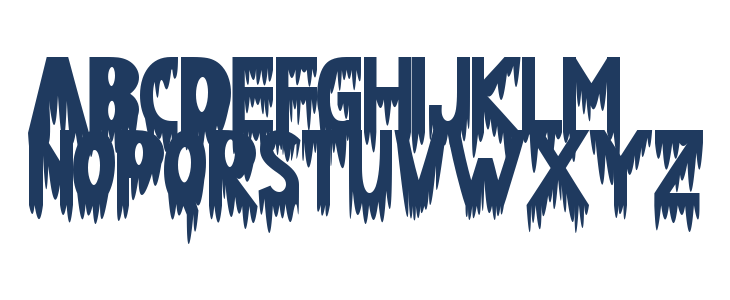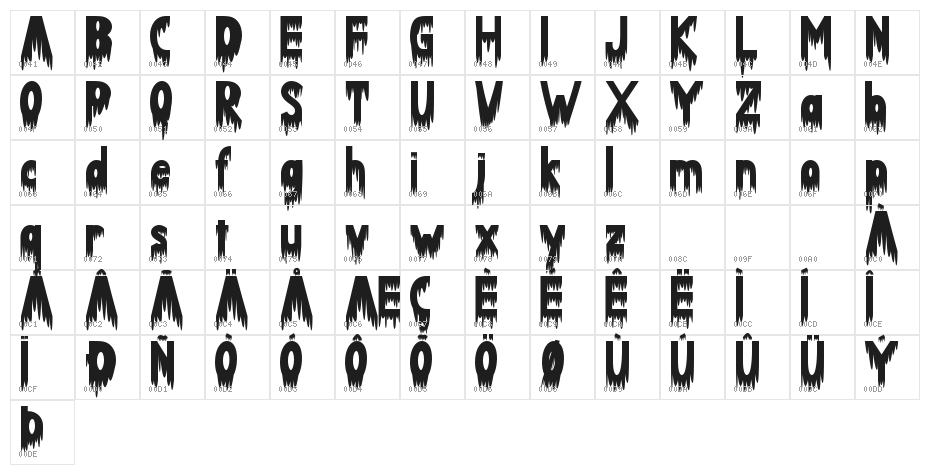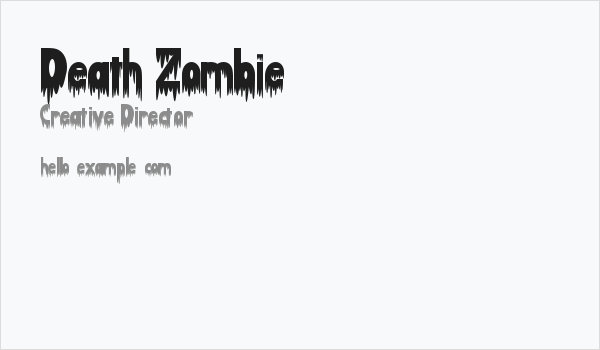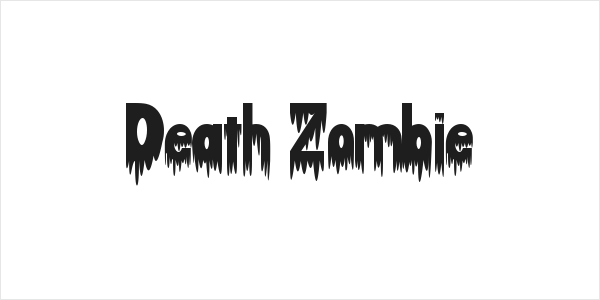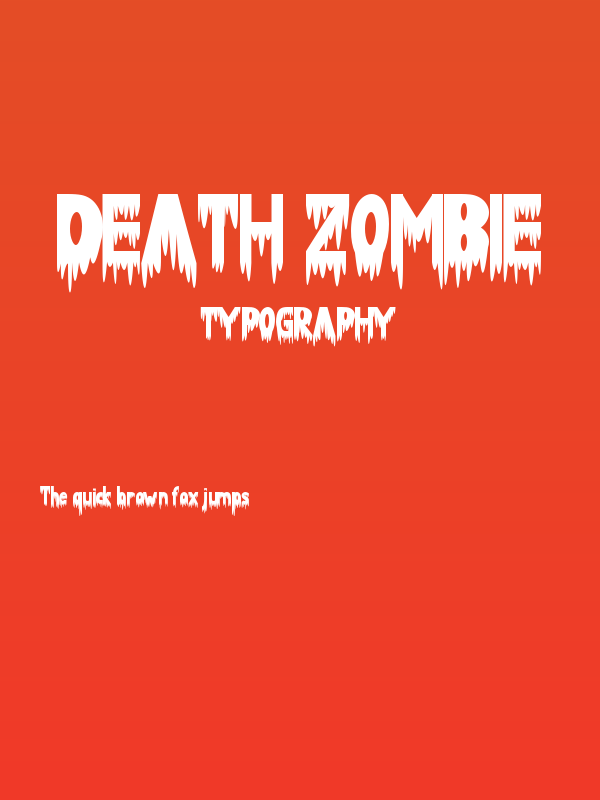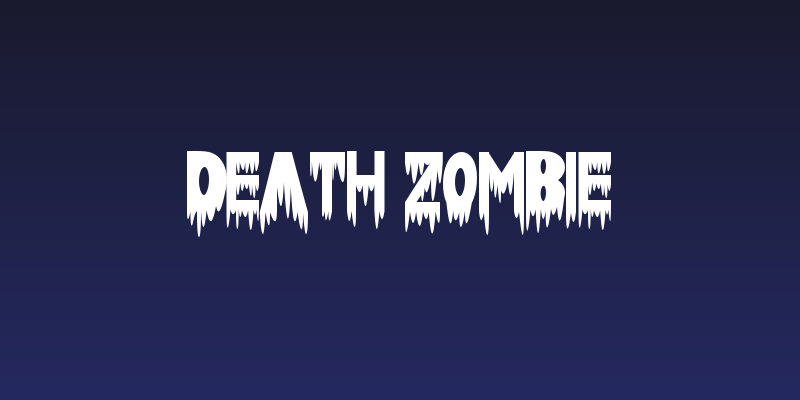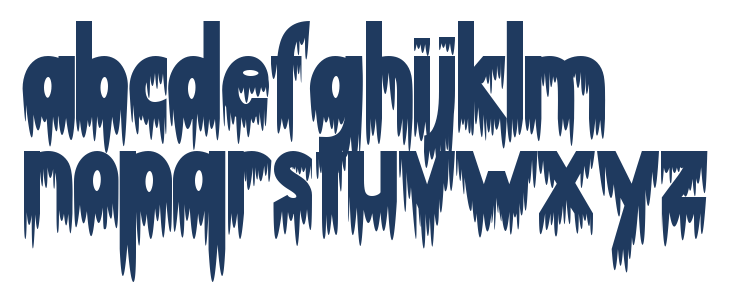
Death Zombie Font
| Categories | Halloween |
| Overall Style | Decorative, Horror, Thematic |
| Use Case | Headlines, Posters, Logos, Event Titles |
| Proposed Projects | Halloween posters, horror movie titles, haunted house flyers, spooky event invitations, themed merchandise, video game graphics. |